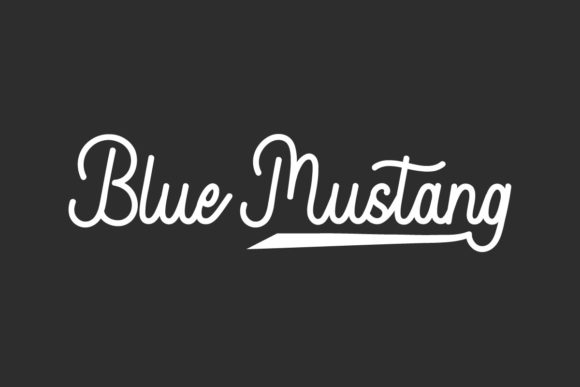
The Blue Mustang Font: A Retro Script Font for Creative Projects
Have you ever been in the middle of a design project, and suddenly, you’re stuck on finding the perfect font? I recall a recent experience where I was working on a branding design for a fashion client, and I just couldn’t find a font that captured the retro-chic vibe they were looking for. That’s when I stumbled upon the Blue Mustang font, and it completely transformed my design. In this article, I’ll share my experience with this unique font, its features, and how to make the most of it in various design platforms.
A Personal Review of Blue Mustang
I’m excited to share my honest review of the Blue Mustang font. Here’s what I love about it:
• ✨ Unique and Retro Style: Blue Mustang boasts a distinct, retro-styled script that’s perfect for creating eye-catching designs.
• ✅ PUA Encoded: The font is PUA encoded, making it easy to access all glyphs and swashes, which is a game-changer for designers.
• ✅ Versatile: It’s suitable for a wide range of projects, including branding design, fashion, headings, invitations, logos, product packaging, merchandise, and more!
While I love Blue Mustang, there are a few minor quirks to be aware of:
• ⚠️ Glyph Overload: With so many glyphs and swashes available, it can be overwhelming to navigate, especially for beginners.
• 🤔 Limited Use in Certain Contexts: Due to its script nature, Blue Mustang might not be the best fit for very formal or traditional designs.
The Story Behind Blue Mustang
The Blue Mustang font was inspired by the classic American West, with its bold lines and fluid script style. The designer aimed to create a font that would evoke a sense of freedom and adventure, while also being versatile enough for various design applications. The result is a font that’s both nostalgic and modern, perfect for creative projects that require a unique touch.
A: PUA (Private Use Area) encoding allows for the inclusion of additional glyphs and characters that aren’t part of the standard Unicode character set. This means you can access a wider range of swashes, glyphs, and alternates, making the font more versatile.
Q: Is Blue Mustang suitable for body text?
A: Due to its script nature, Blue Mustang is better suited for headings, titles, and short paragraphs. For body text, a more traditional font might be more readable.